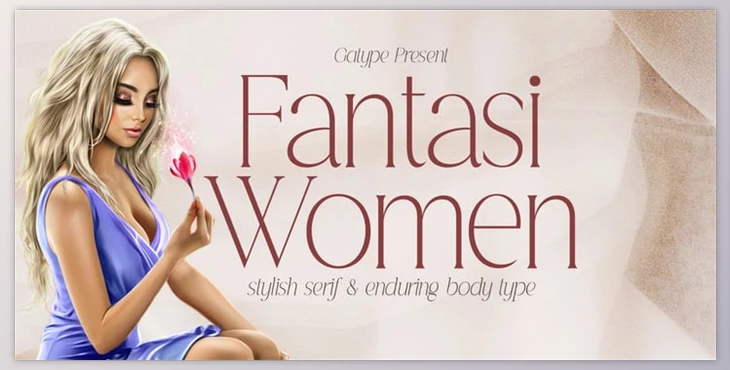
Women Fantasy is a modern serif font with a distinct and elegant style. It is stunning regardless of screen size and is simple to read, even in small text. Fantasy Women is an open-type font that was designed to be used for titles, headlines, and other text that is short. It's ideal for vintage mood boards, advertising branding, logos, branding packaging editorial designs, titles, and contemporary and classic designs.
This font is sure to bring a fun and welcoming accent to your projects! The Font is PUA encoded, which means that you have access to all characters and sweeps with ease and much more.